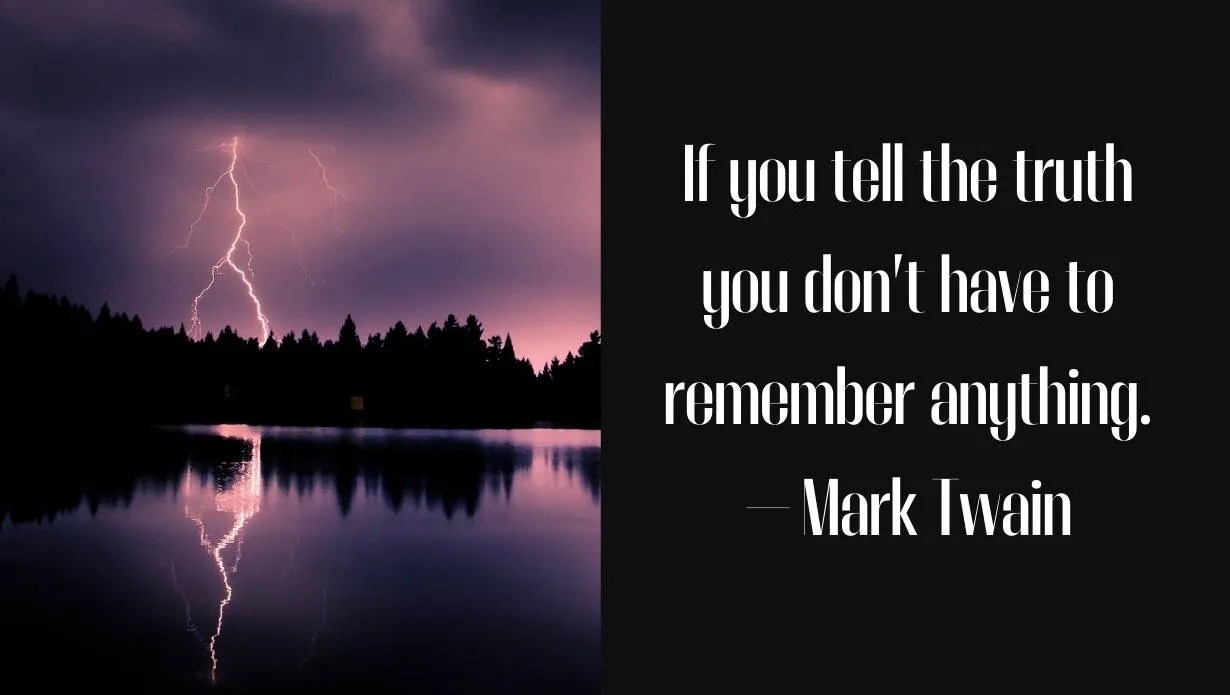
Welcome, let introduce to you a very elegant and outstanding typeface style. This typeface is known as the name of Thunder Font. It belongs to the Sans Serif typeface family. This amazing and attractive typeface was designed and published by a well-known graphic designer called Rajesh Rajput.
This wonderful typeface includes 18 different weights such as strong character, Sharp edges, italic version, and proportional contrast. The alternative font of this typeface is Hansief Font. This typeface has both file formats OpenType and Truetype.